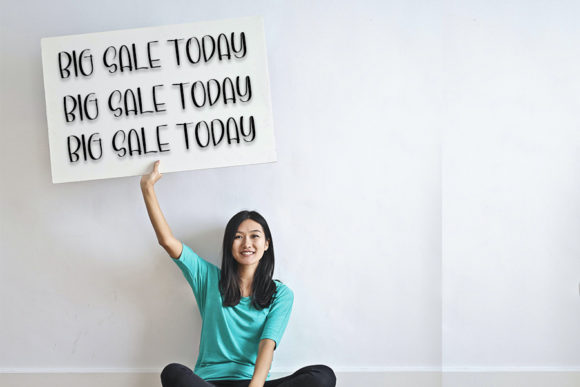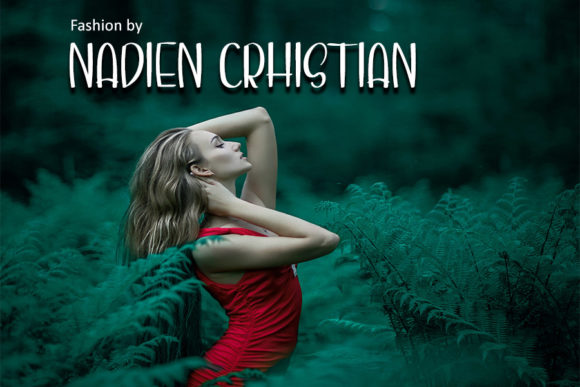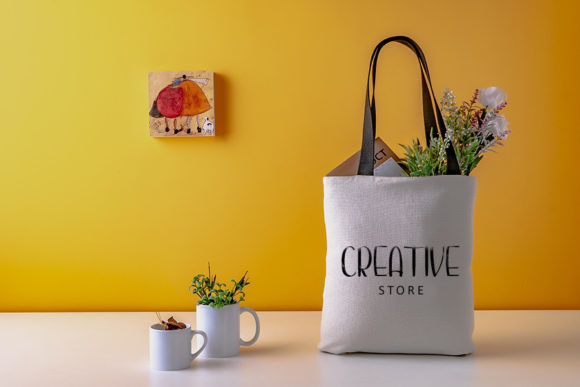
Introduction to Fashionable Font
Fashionable is a stylish display font with a smart atmosphere and impeccable form, inspired by a classic calligraphy.
Balanced and varied, this font was designed to enhance the beauty of your projects .
Key Features of Fashionable Font